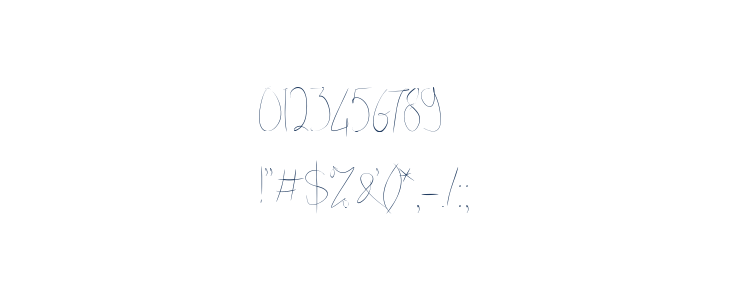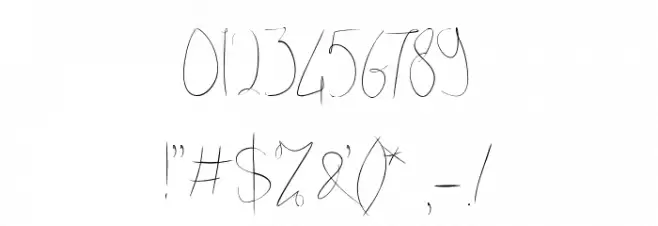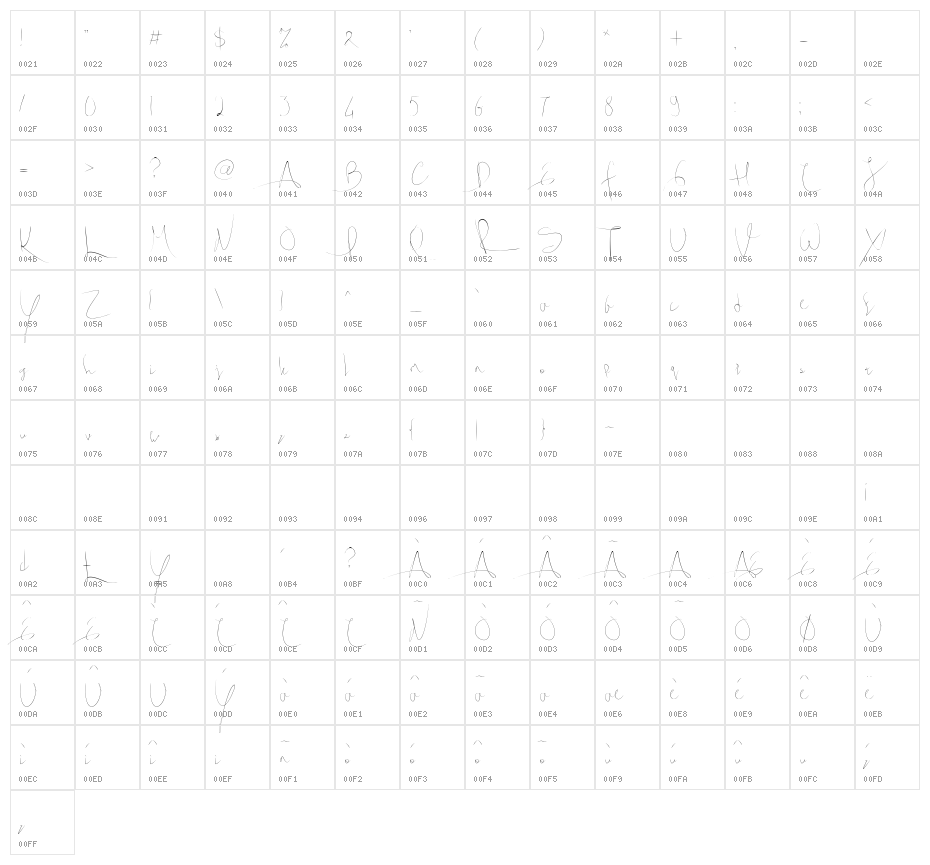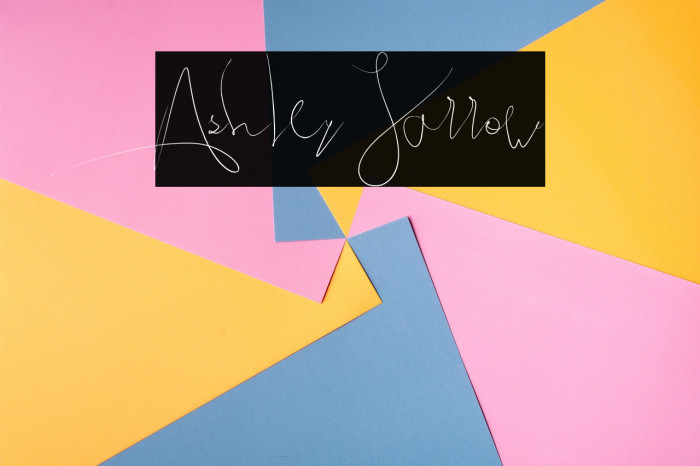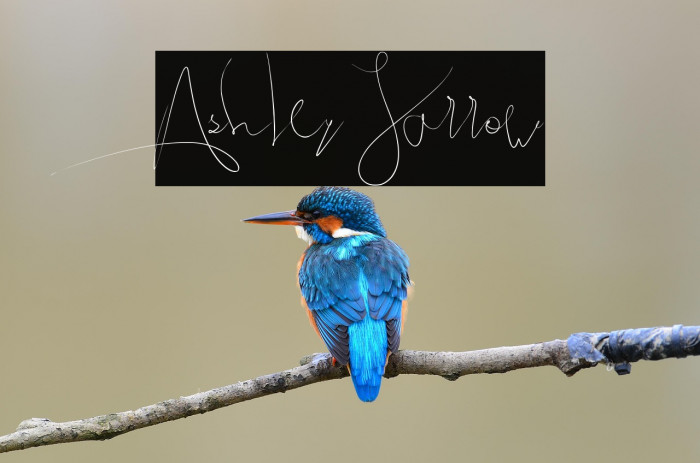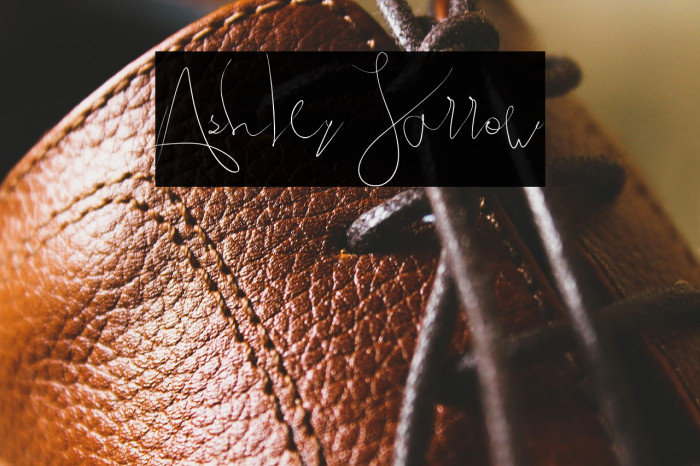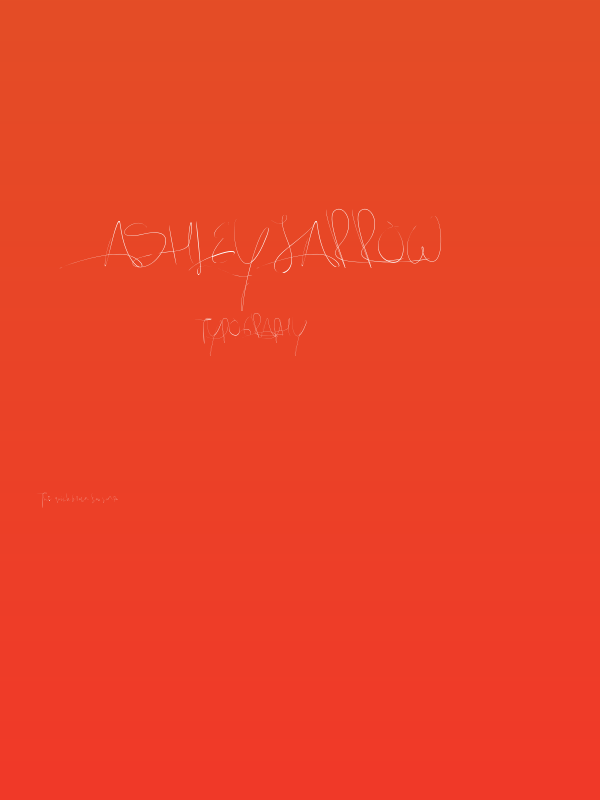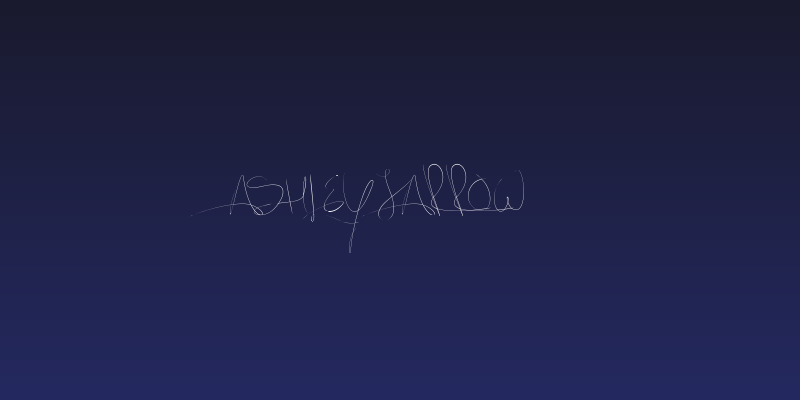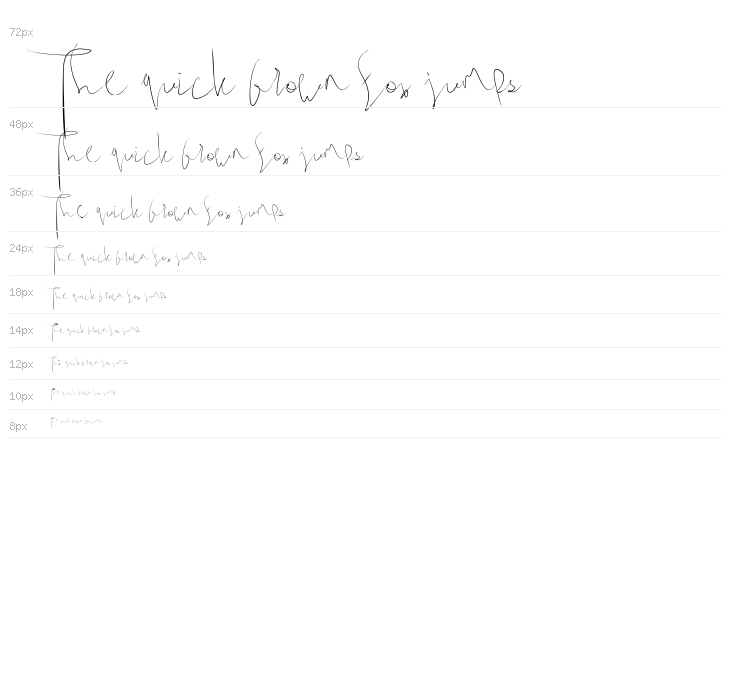
Ashley Jarrow Font
Ashley Jarrow Description
This font exhibits a delicate, hand-drawn style with a whimsical and airy feel. The characters are crafted with thin, flowing lines that give an impression of elegance and fluidity. Each letter has a unique, artistic flair, with varying heights and slants that contribute to its distinctive personality. The uppercase letters are particularly expressive, featuring exaggerated loops and curves, while the lowercase letters maintain a more subtle, yet equally charming appearance. The numbers and special characters are consistent with the overall style, adding to the font's cohesive look. This font is ideal for projects that require a touch of sophistication and creativity.
| Proposed Projects | Ideal for wedding invitations, greeting cards, artistic branding, and creative projects. |